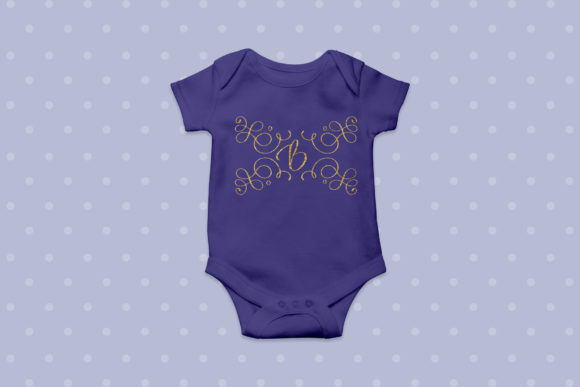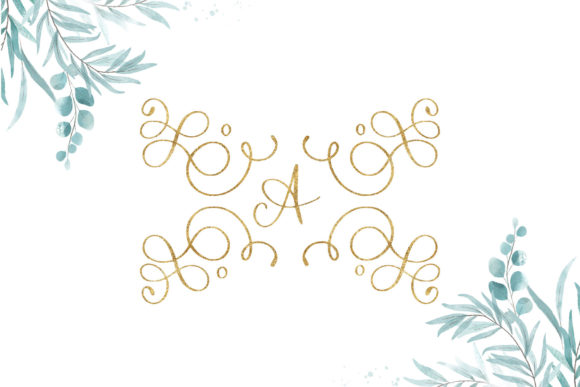
The Power of Authentic Monogram: Elevate Your Designs with this Dainty Font
I’ll never forget the moment I stumbled upon the Authentic Monogram font while working on a wedding invitation project for a dear friend. I had been searching for the perfect font to add a touch of elegance and romance, but everything I found seemed either too bold or too bland. That’s when I discovered Authentic Monogram, and it instantly became the perfect fit. In this article, I’ll share my experience with this beautiful font, its features, and how to make the most of it in your designs.
An Honest Review of Authentic Monogram
So, what makes Authentic Monogram so special? Here are a few things I love about this font:
• ✨ Dainty and elegant: Authentic Monogram is a beautifully crafted font that exudes romance and sophistication.
• ✅ Unique and distinctive: Its monogram style sets it apart from more traditional fonts, making it perfect for designs that need a touch of personality.
• 💕 Perfect for love letters and wedding designs: The font’s romantic feel makes it ideal for wedding invitations, love letters, and other designs that require a touch of warmth and intimacy.
While Authentic Monogram is an amazing font, it’s not without its quirks. Here are a few things to keep in mind:
• 🤔 Limited use cases: Due to its distinctive style, Authentic Monogram may not be the best fit for more formal or corporate designs.
• ⚠️ Glyph limitations: Some users have reported issues with certain glyphs not displaying correctly, so be sure to test the font thoroughly before using it in a project.
The Designer Inspiration Behind Authentic Monogram
While the true story behind Authentic Monogram may be unknown, it’s easy to imagine a designer inspired by traditional monogramming techniques and the romance of vintage love letters. Perhaps the designer wanted to create a font that would evoke feelings of warmth and intimacy, perfect for special occasions.
What is Authentic Monogram? Authentic Monogram is a decorative font designed to add a touch of elegance and romance to your designs.
Does Authentic Monogram support OpenType features? Yes, Authentic Monogram supports OpenType features, such as ligatures and stylistic alternates.